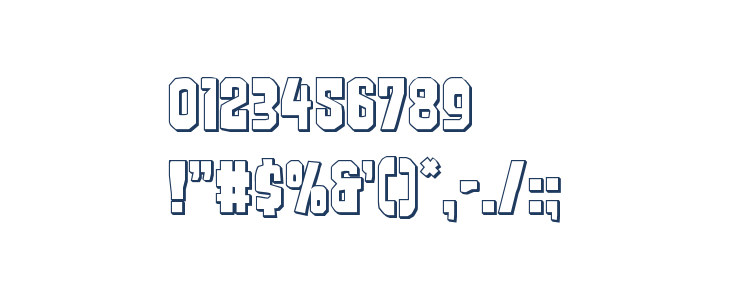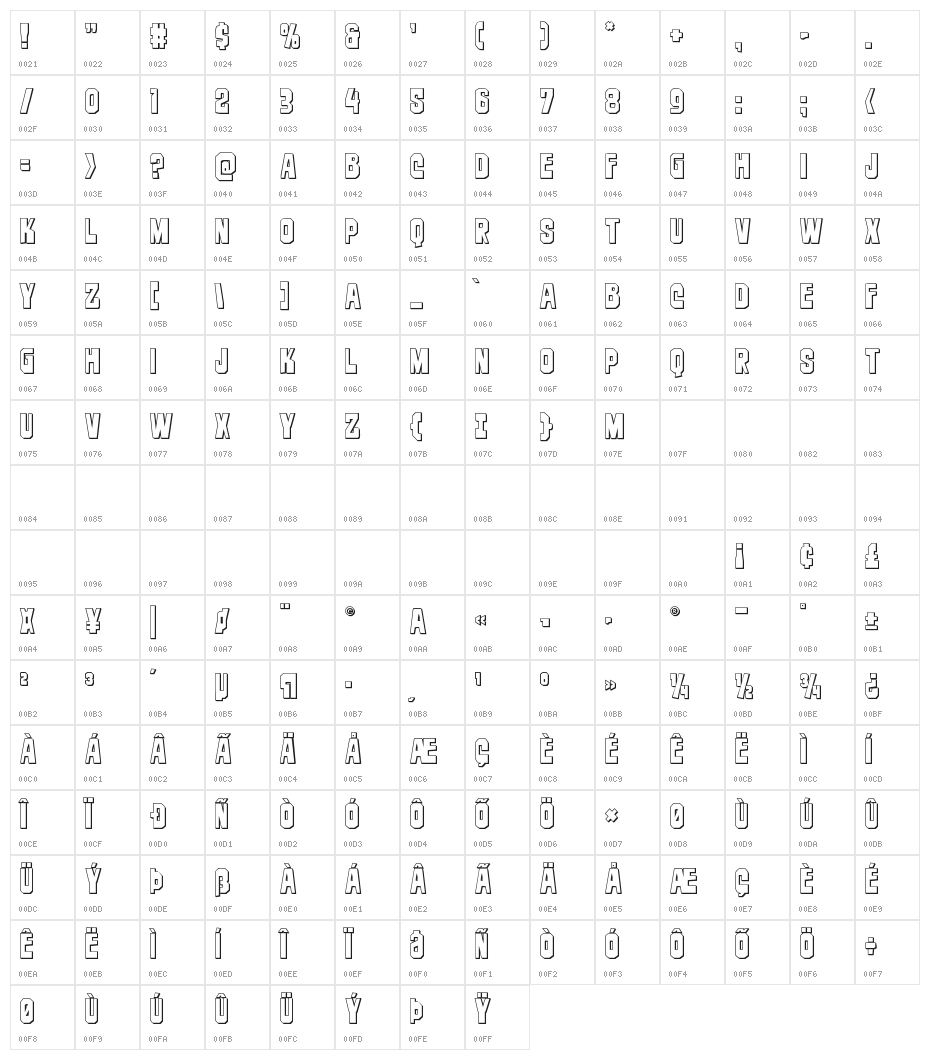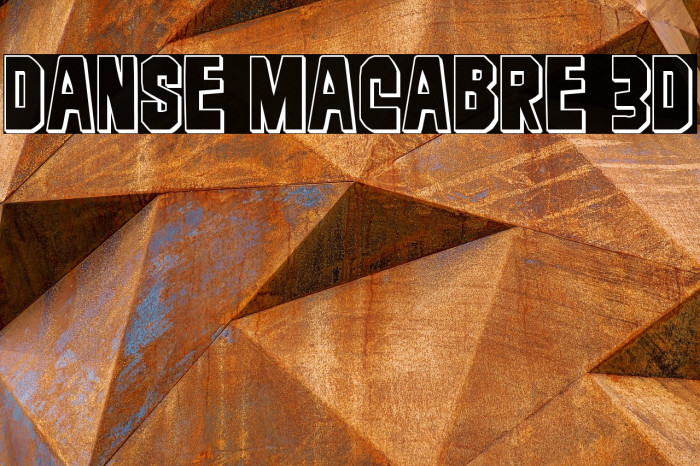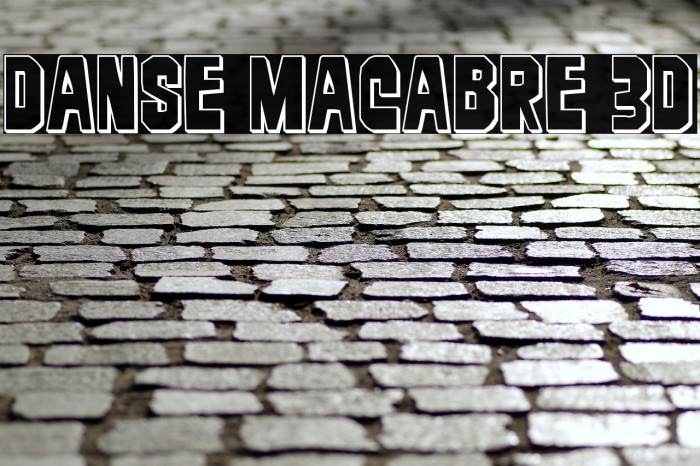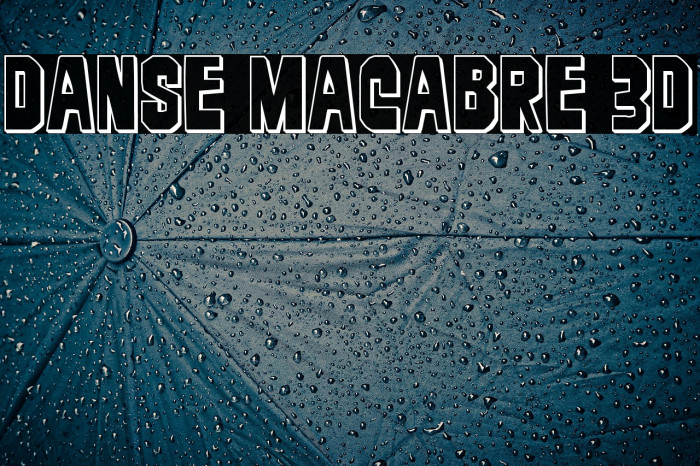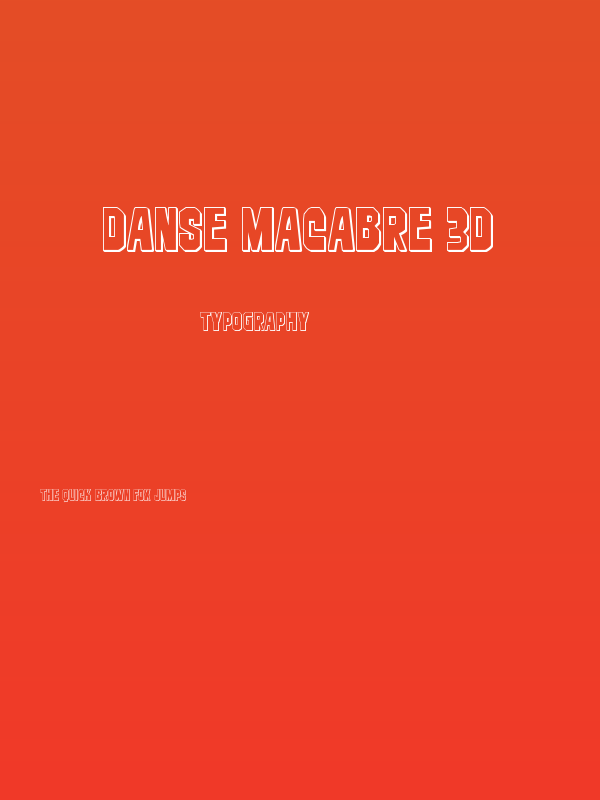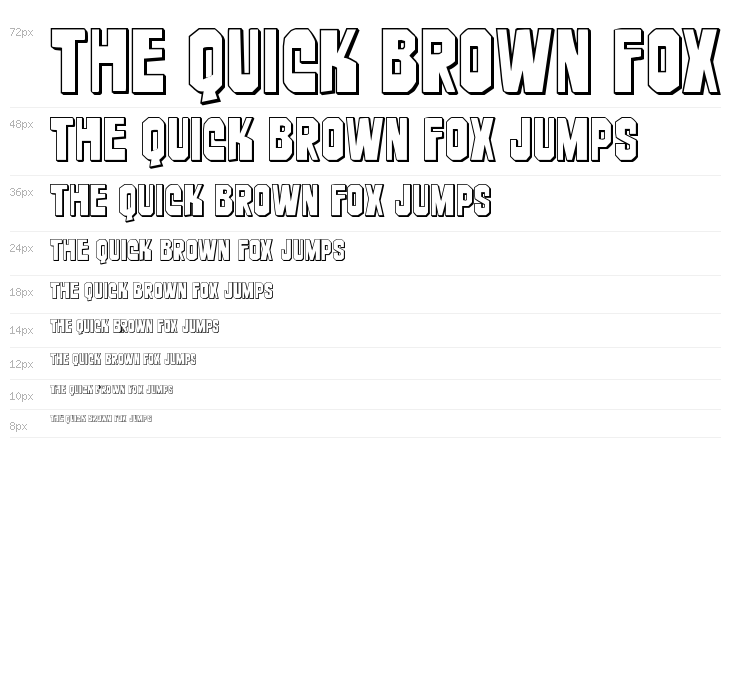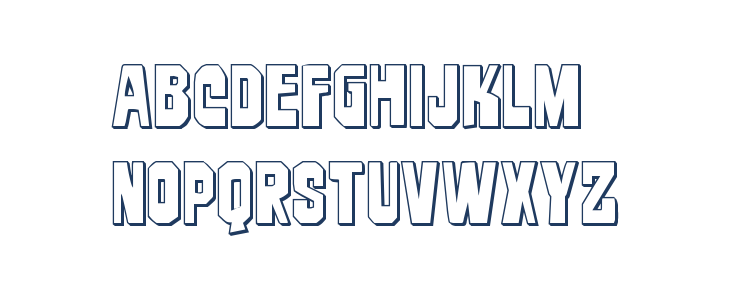
Danse Macabre 3D Font
Danse Macabre 3D Description
This font features a bold, three-dimensional design with a strong, impactful presence. The characters are outlined with a thick border, giving them a shadowed, embossed appearance that enhances their visibility and adds depth. The uppercase letters are uniform in height, maintaining a consistent alignment that contributes to the font's structured look. The numerals and special characters follow the same design principles, ensuring a cohesive appearance across all glyphs. This font's unique style makes it suitable for projects that require a standout, eye-catching typeface.
| Proposed Projects | Ideal for posters, headlines, logos, and any design needing a bold, attention-grabbing typeface. |